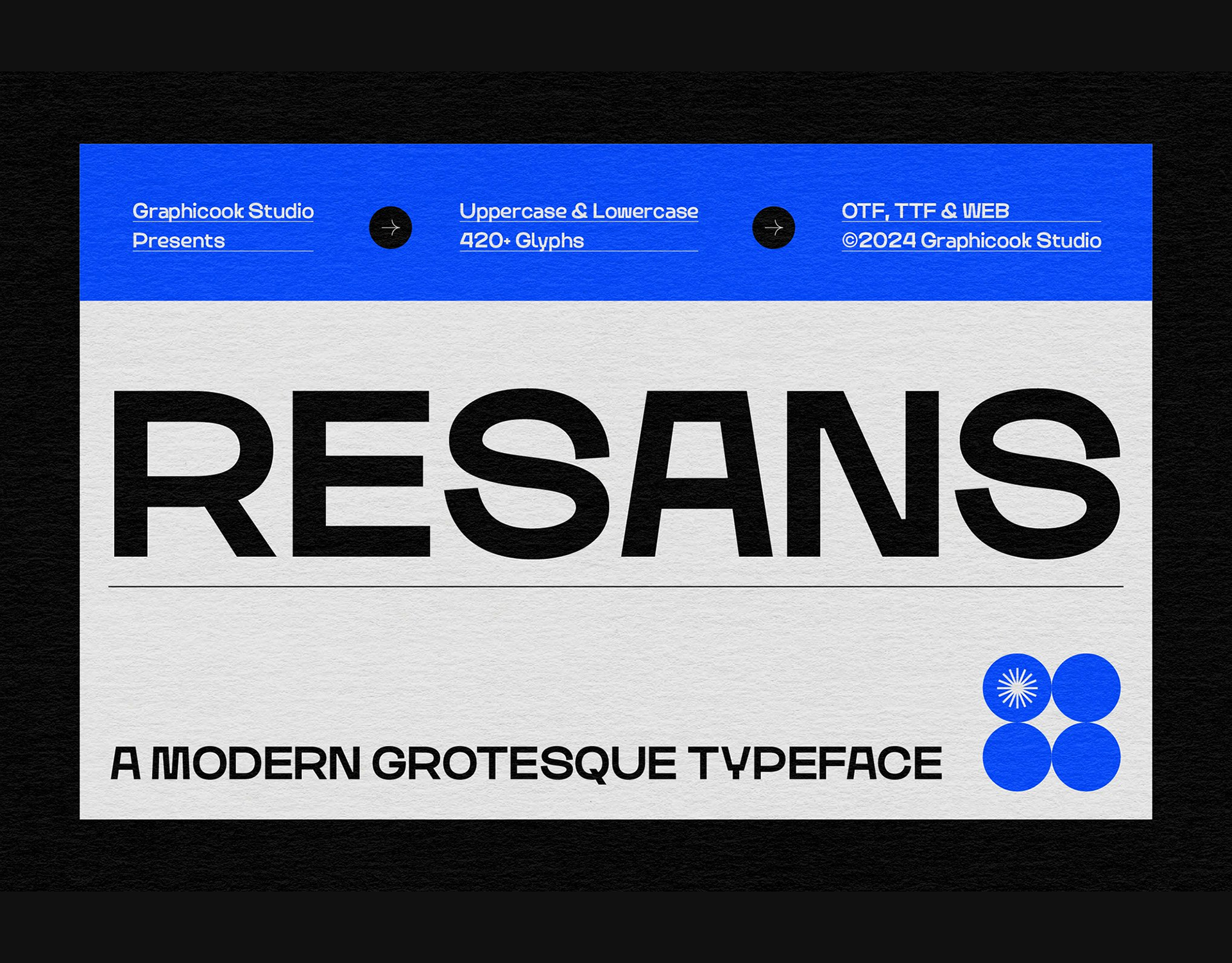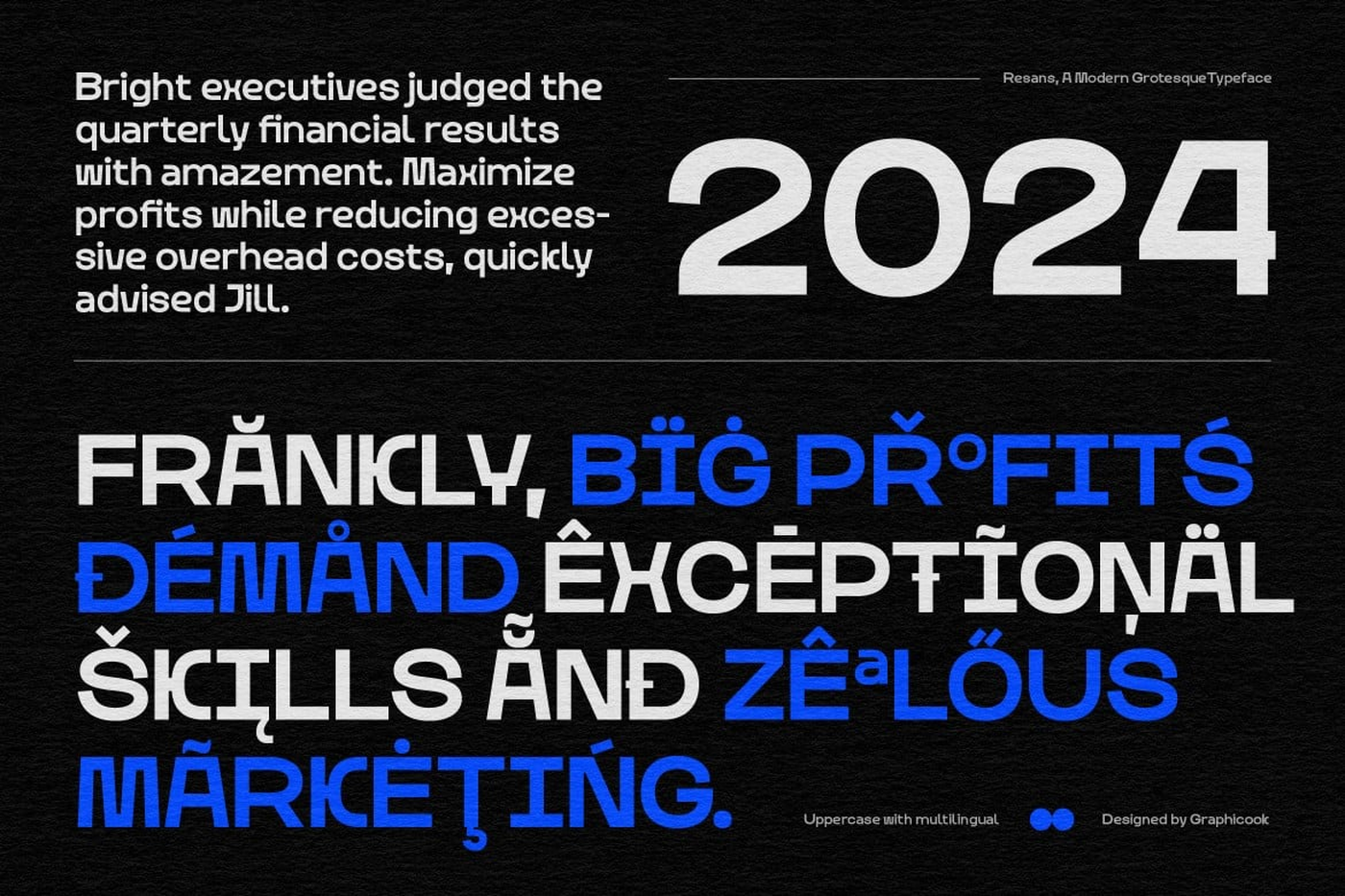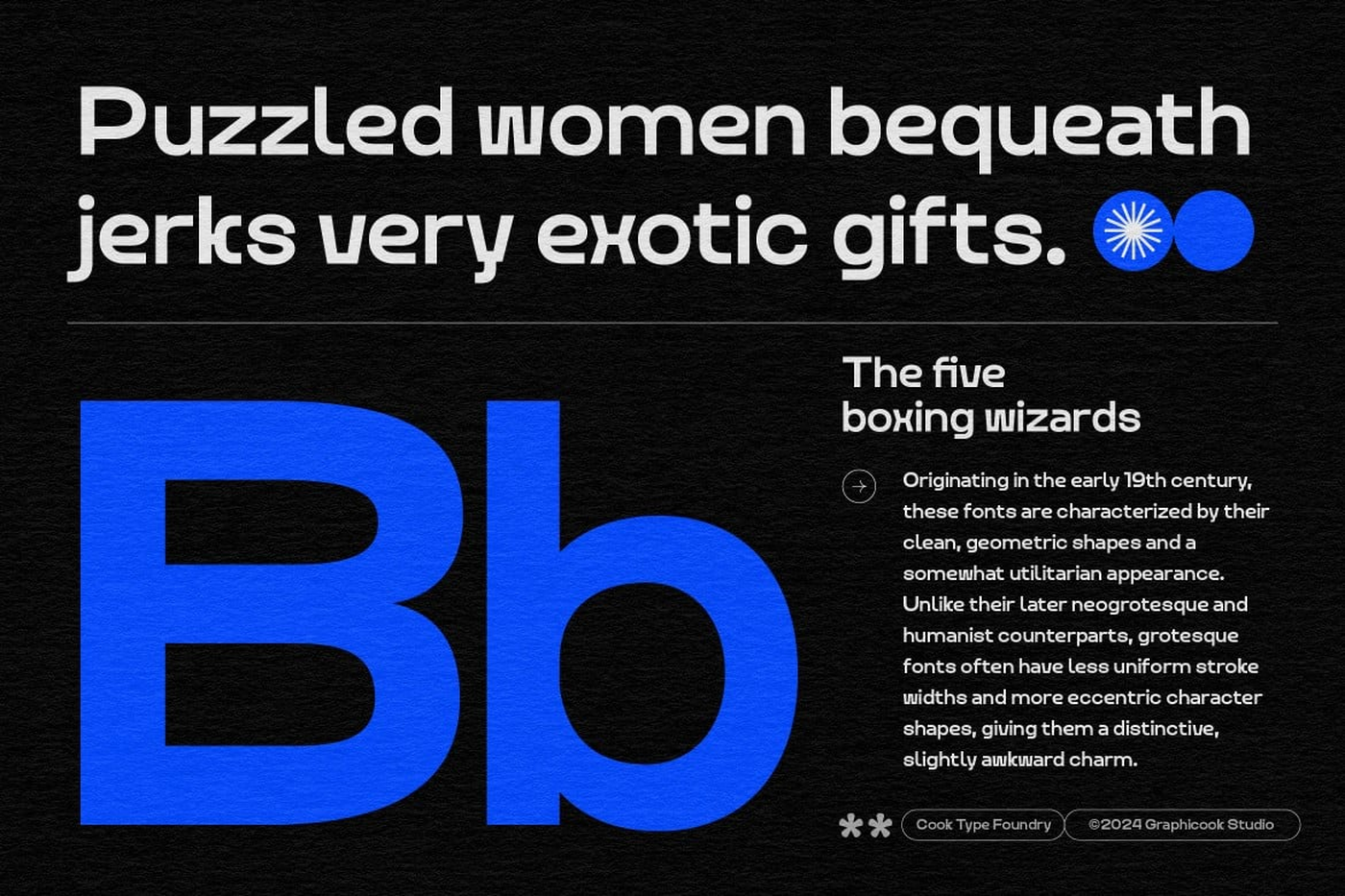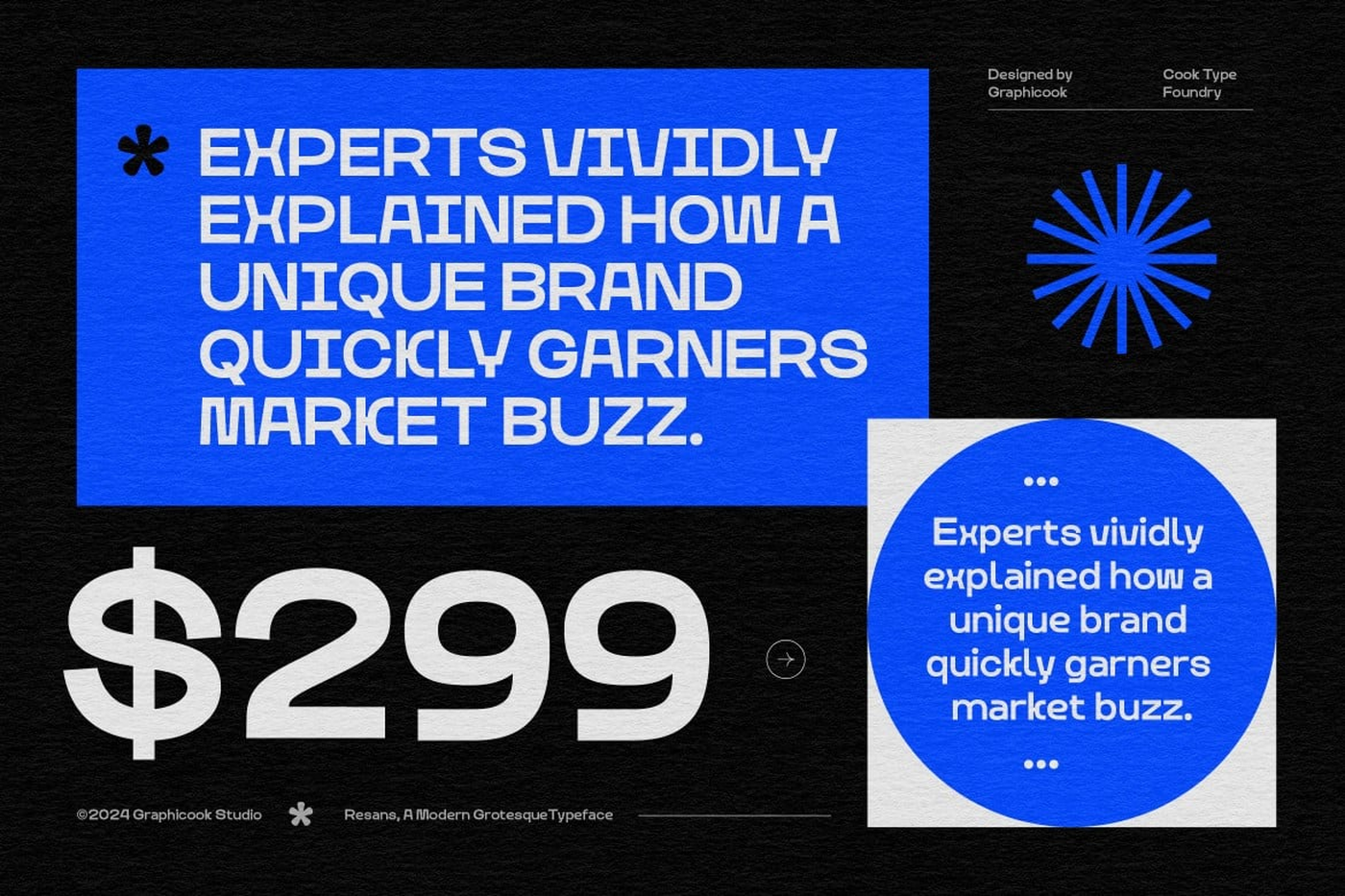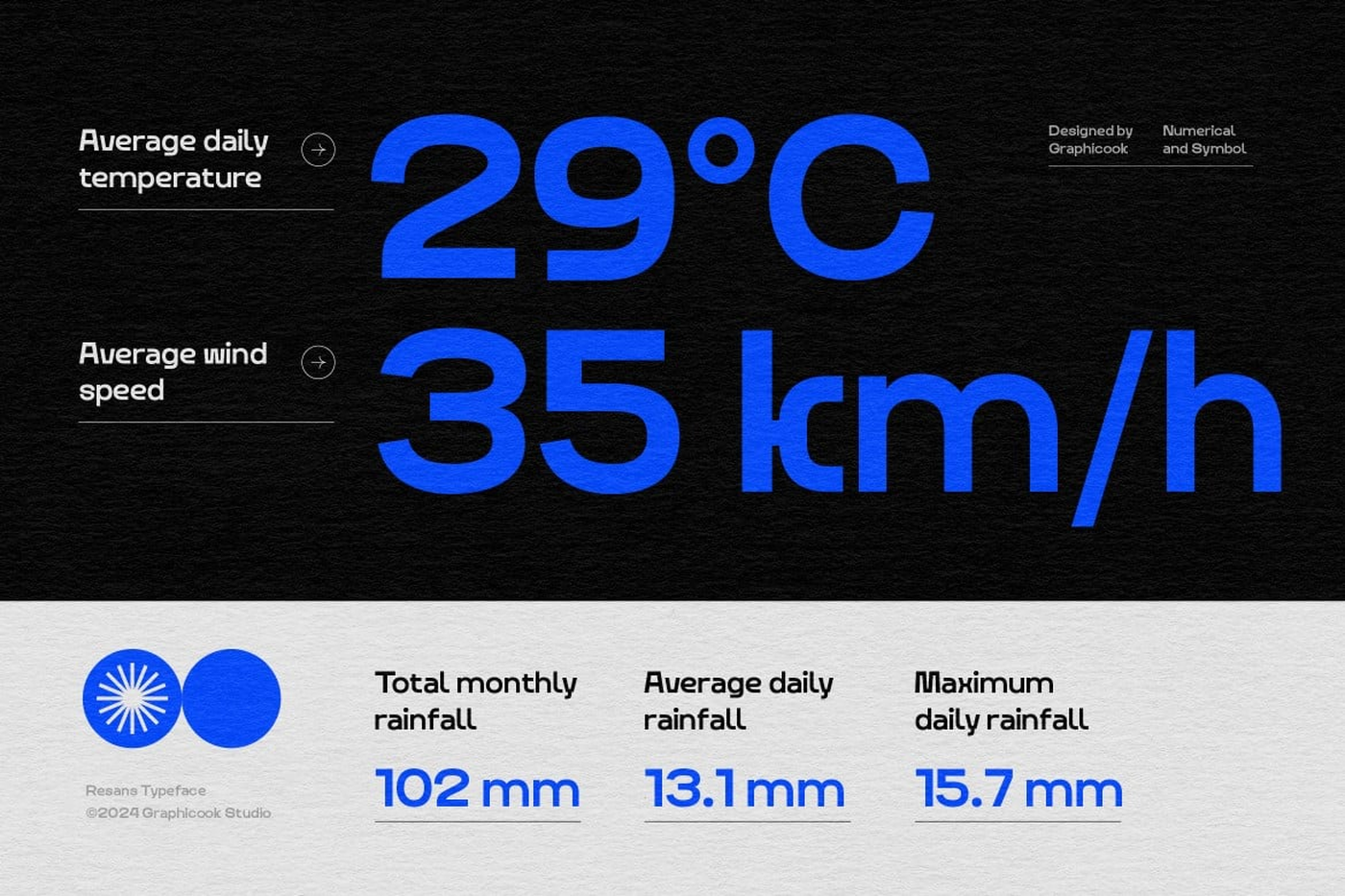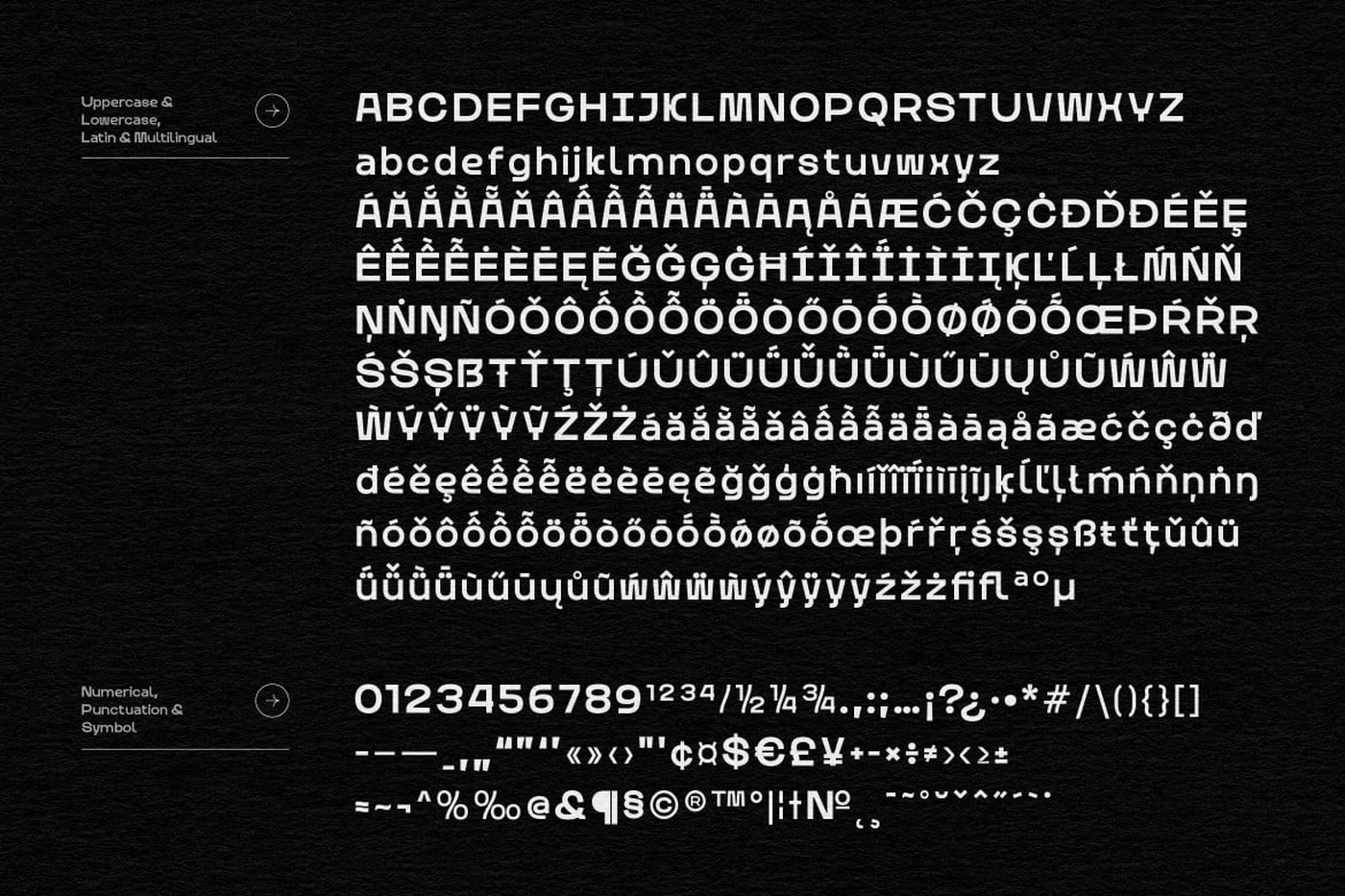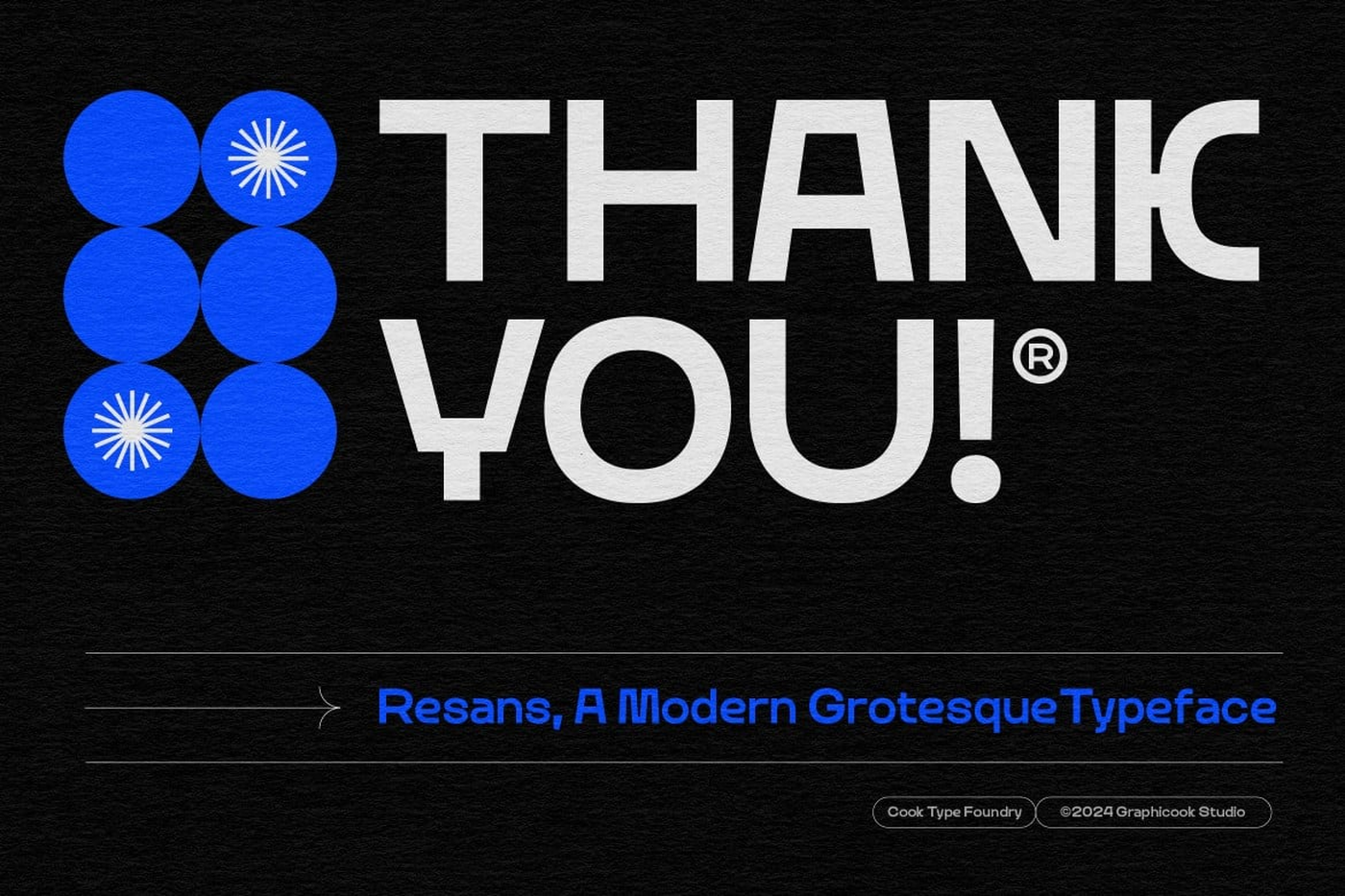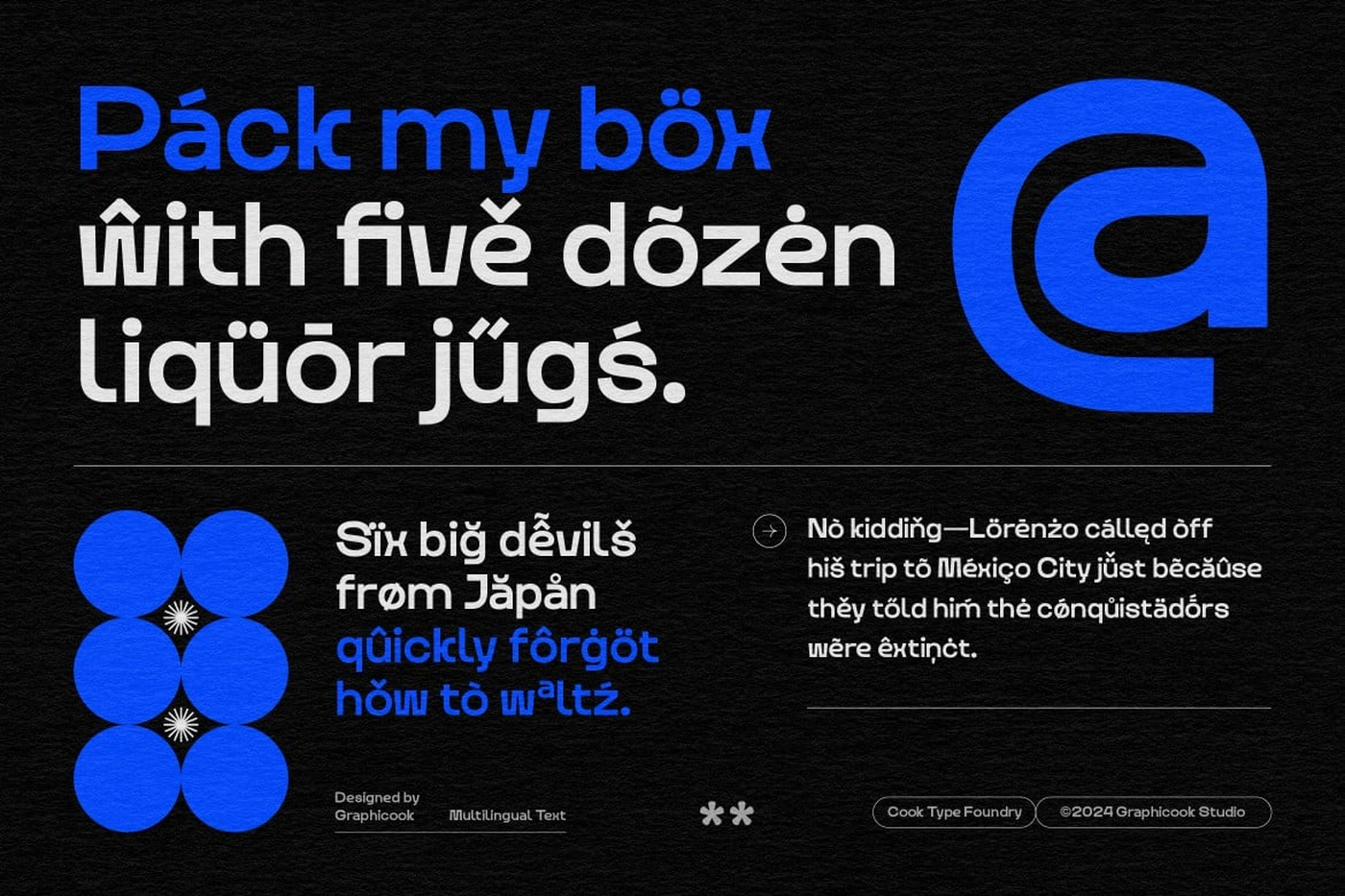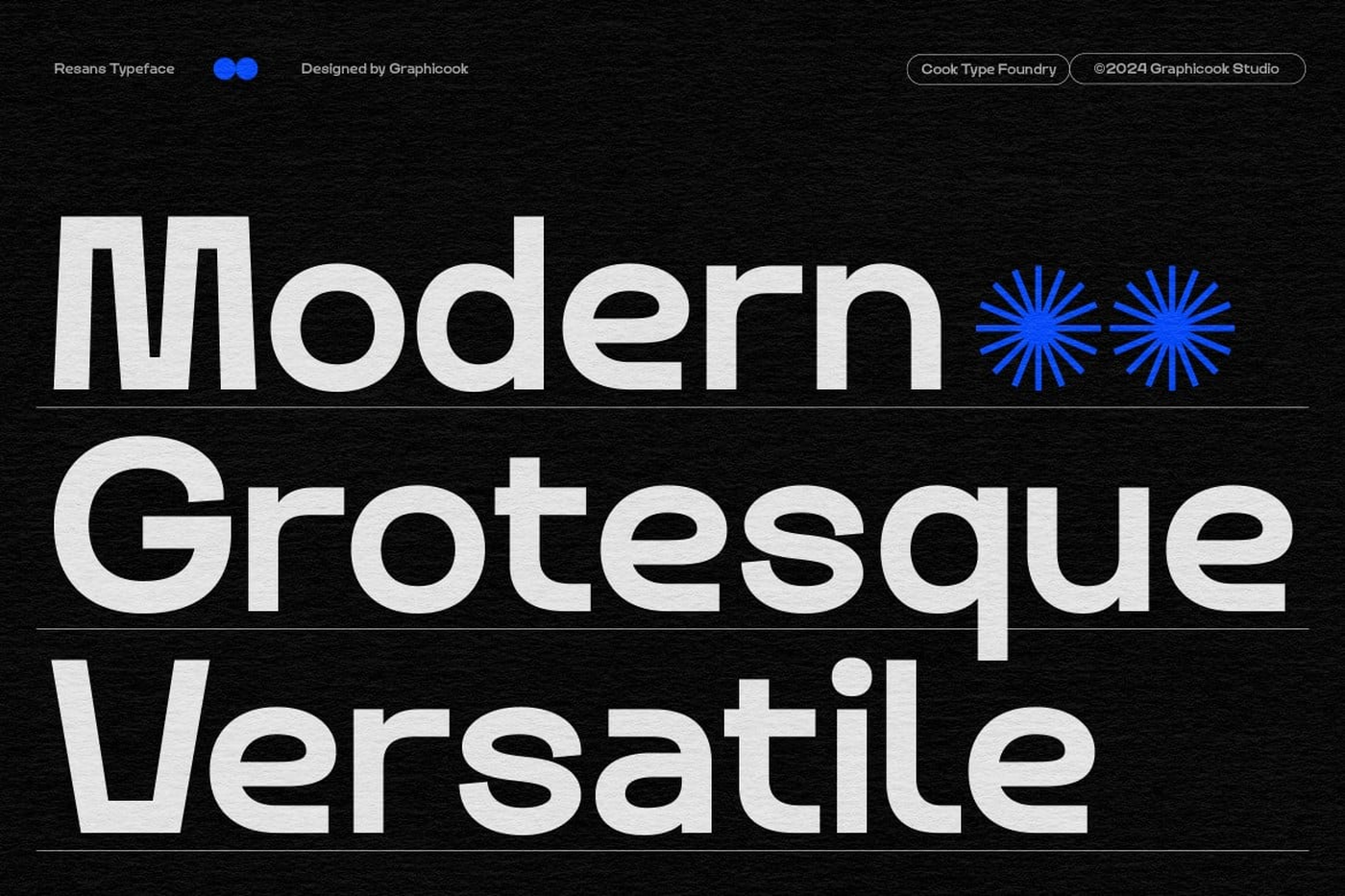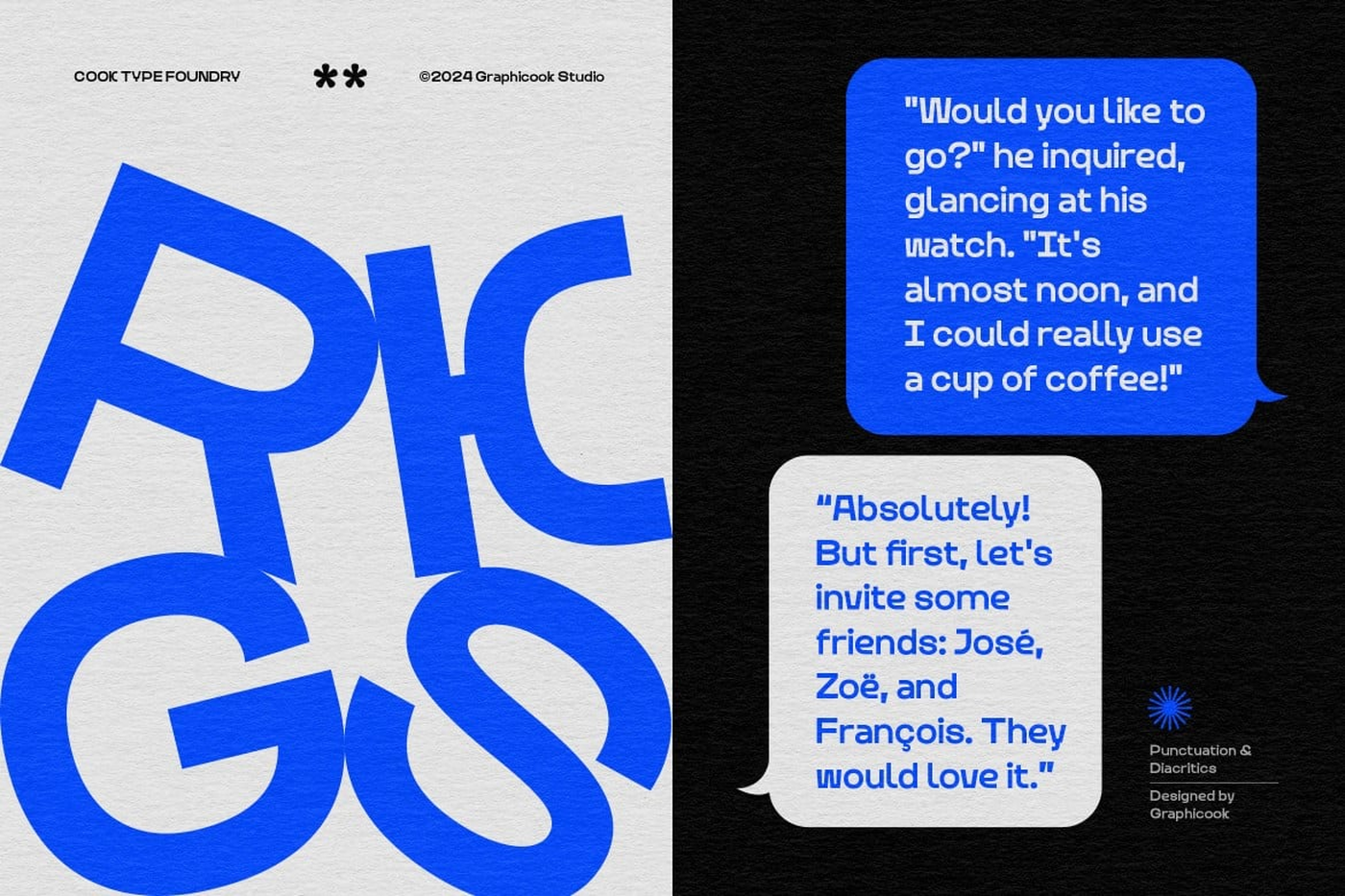
Resans - Modern Grotesque Font
Resans is a modern grotesque font crafted with versatility in mind, making it suitable for a wide range of projects
Font: Resans